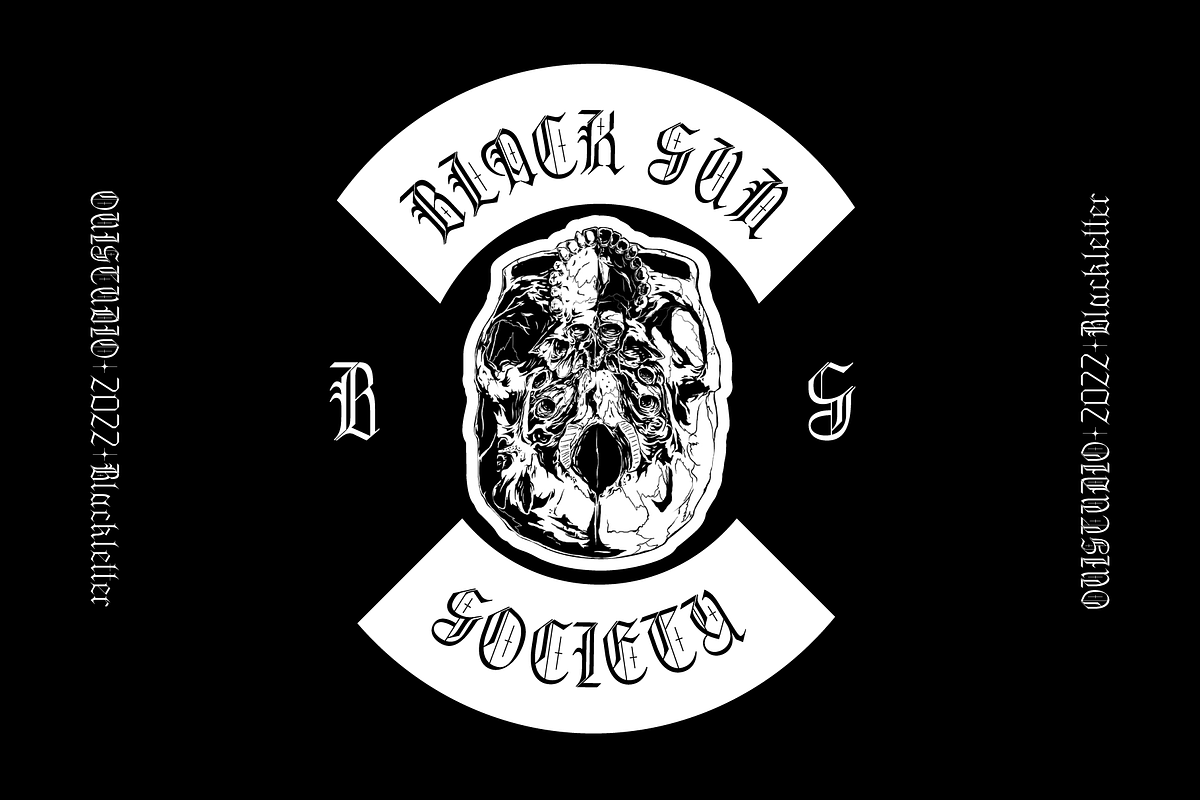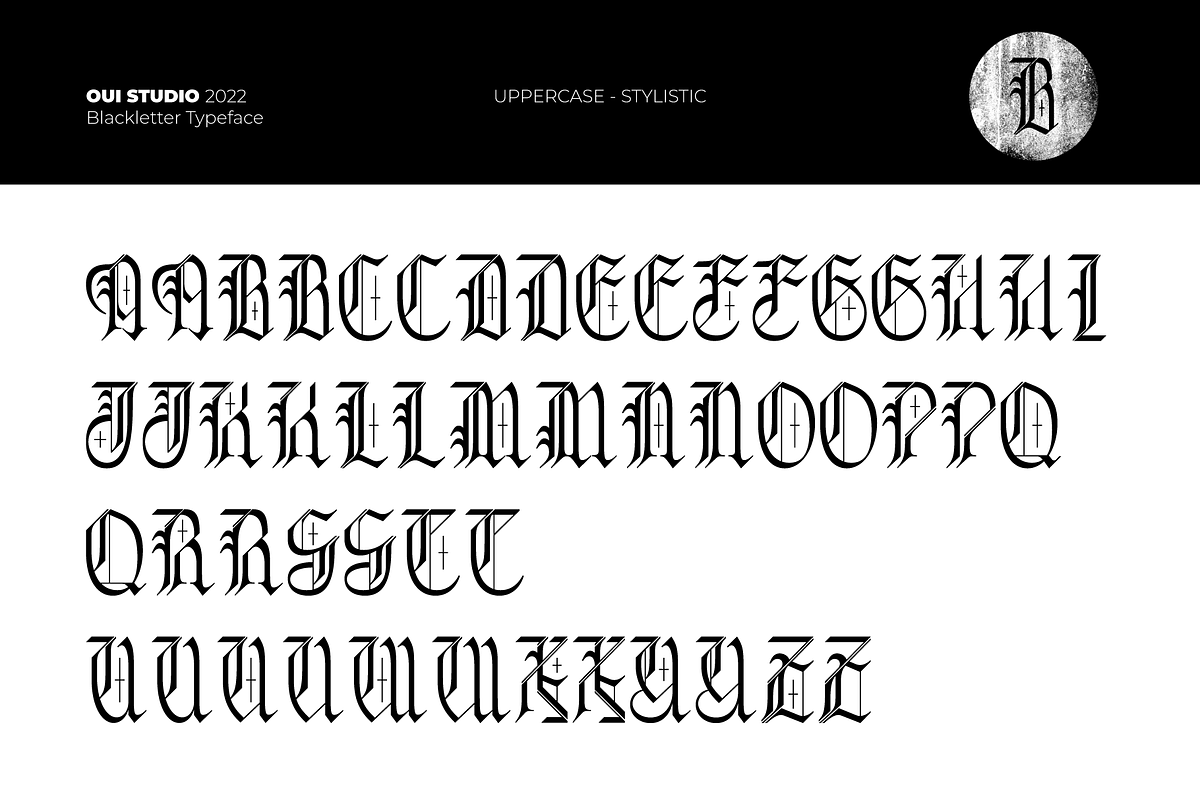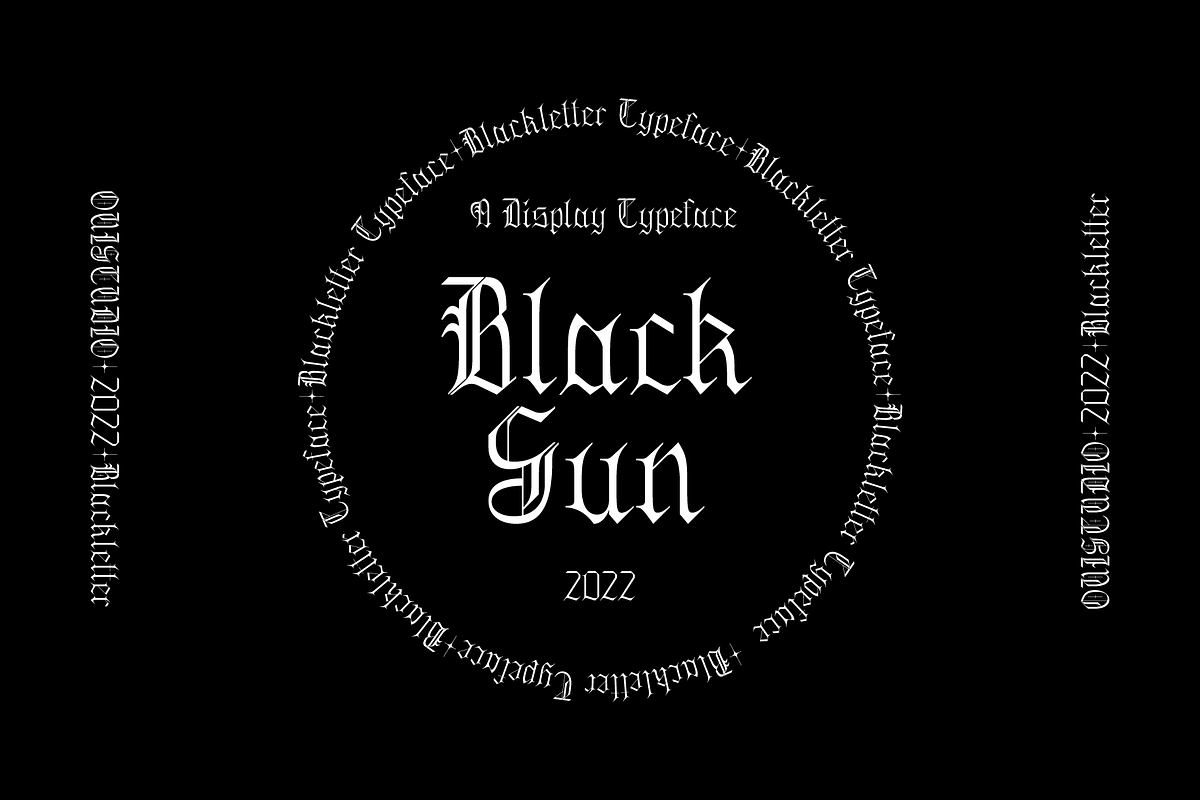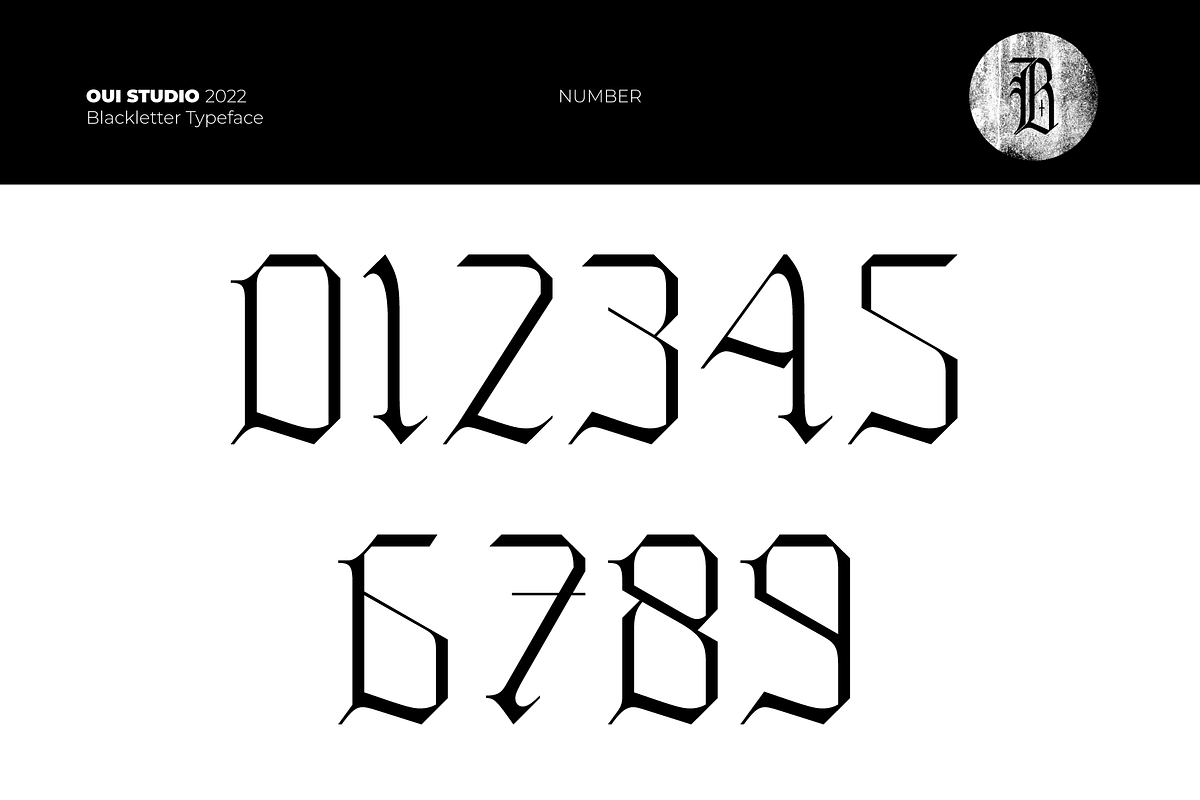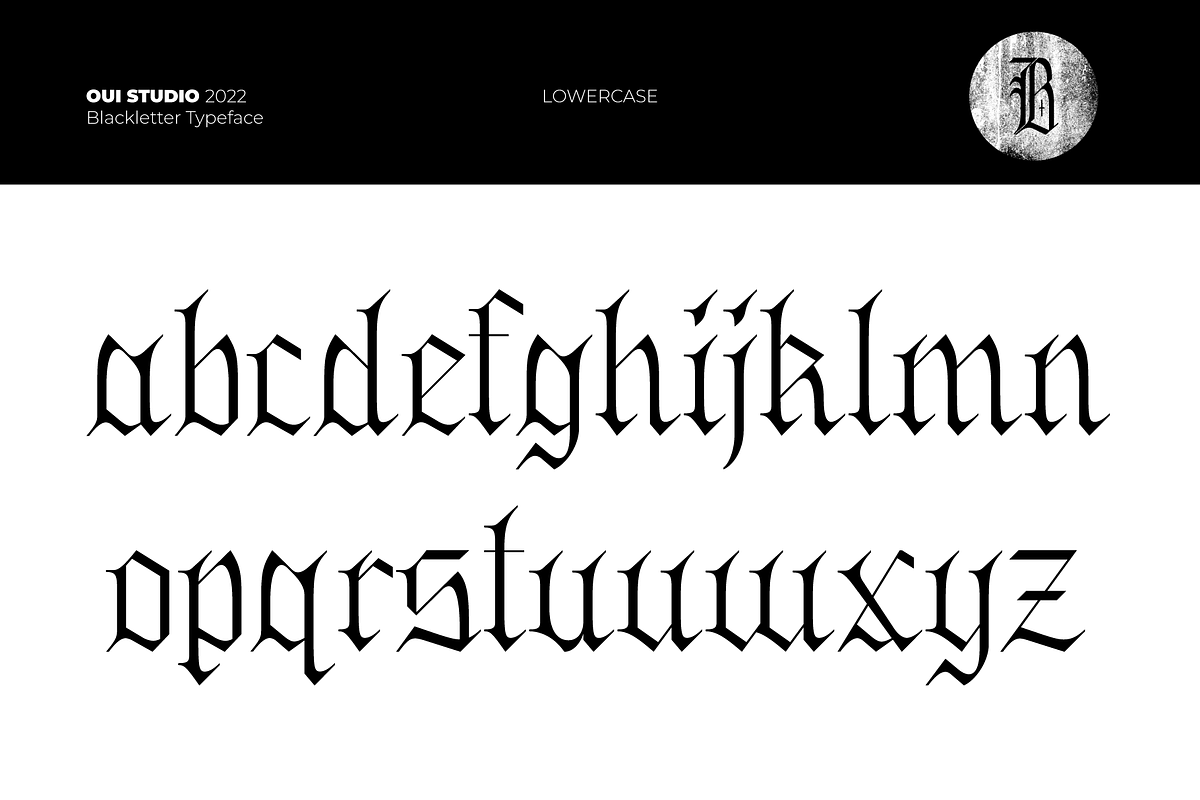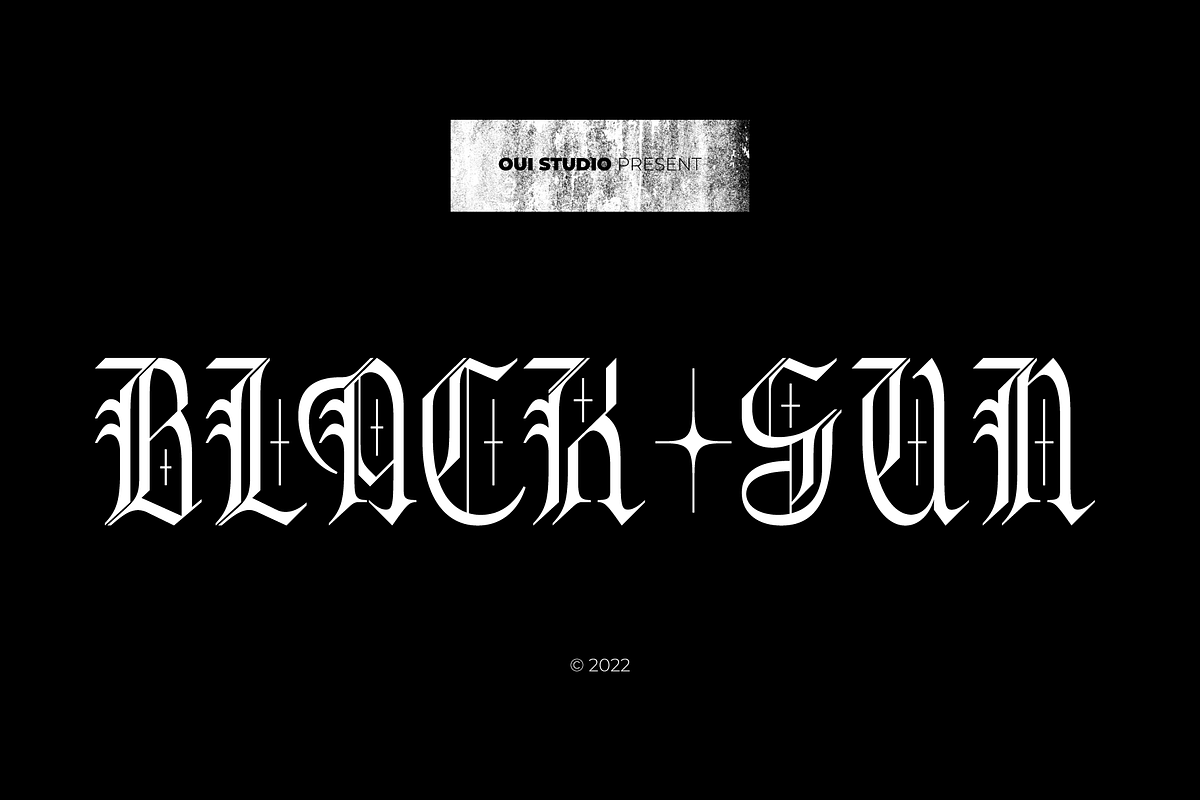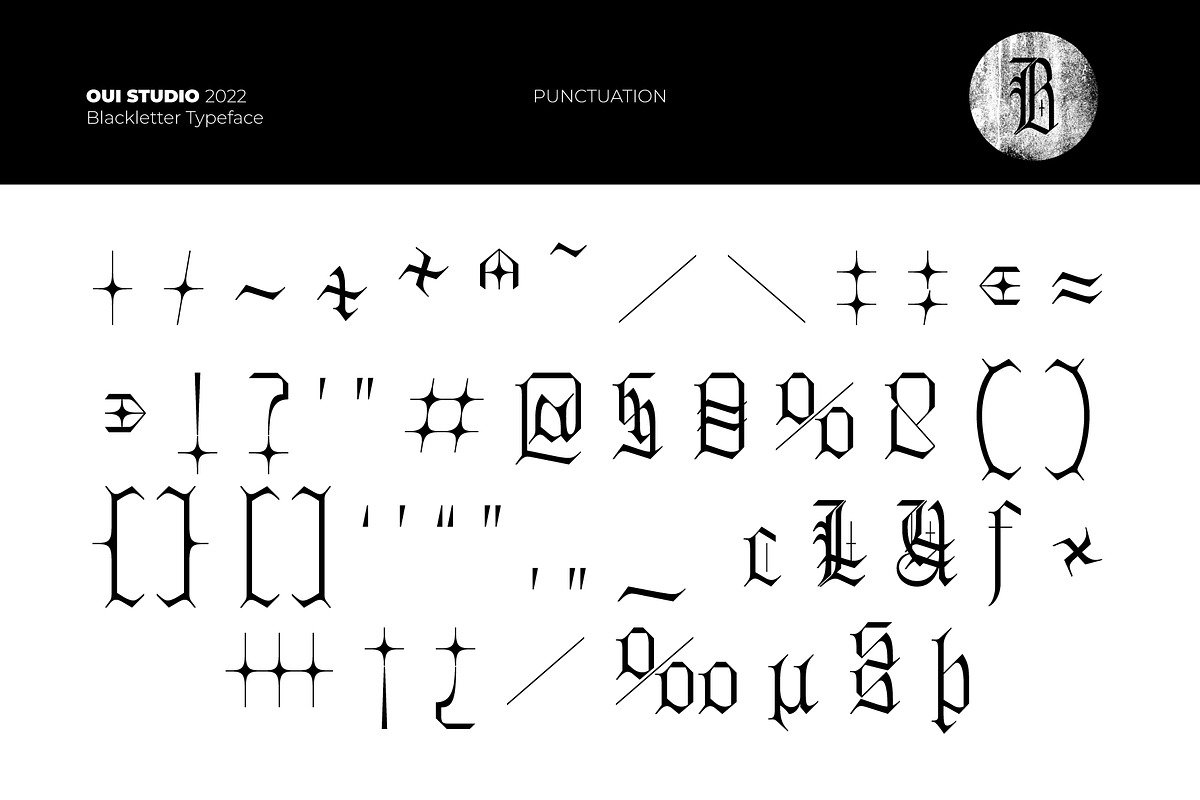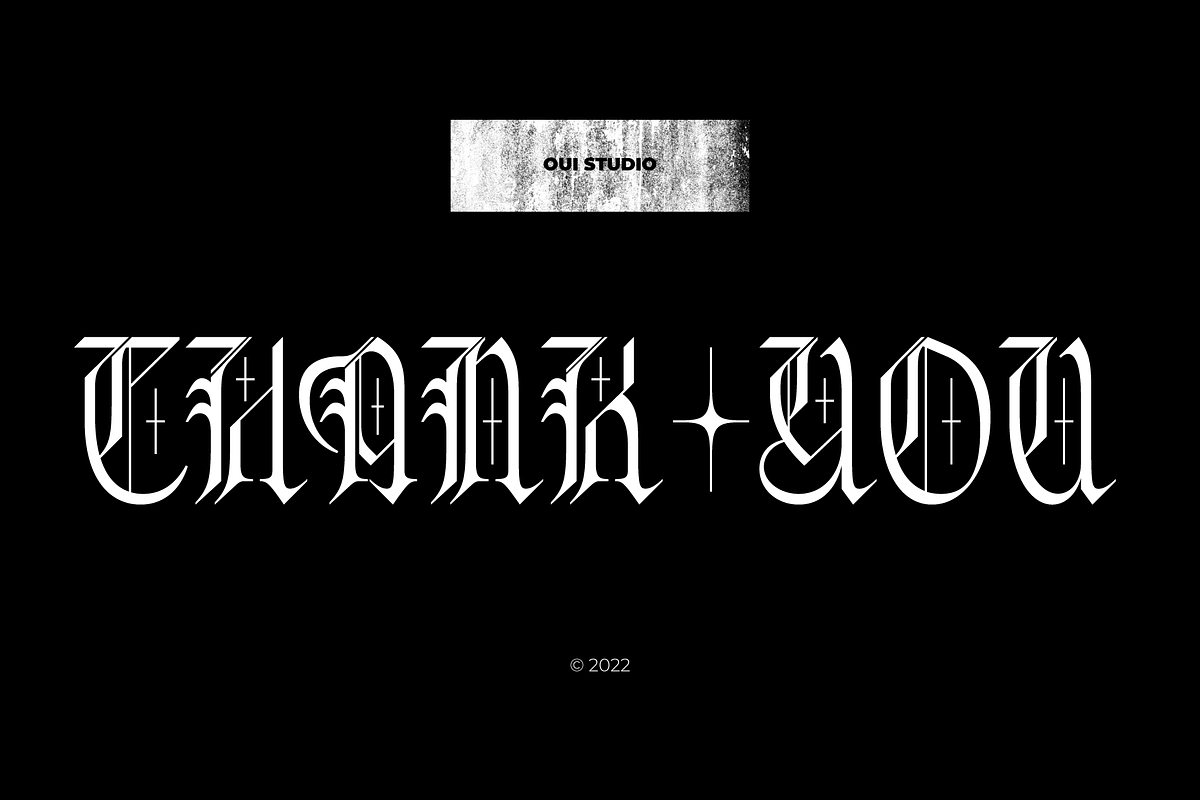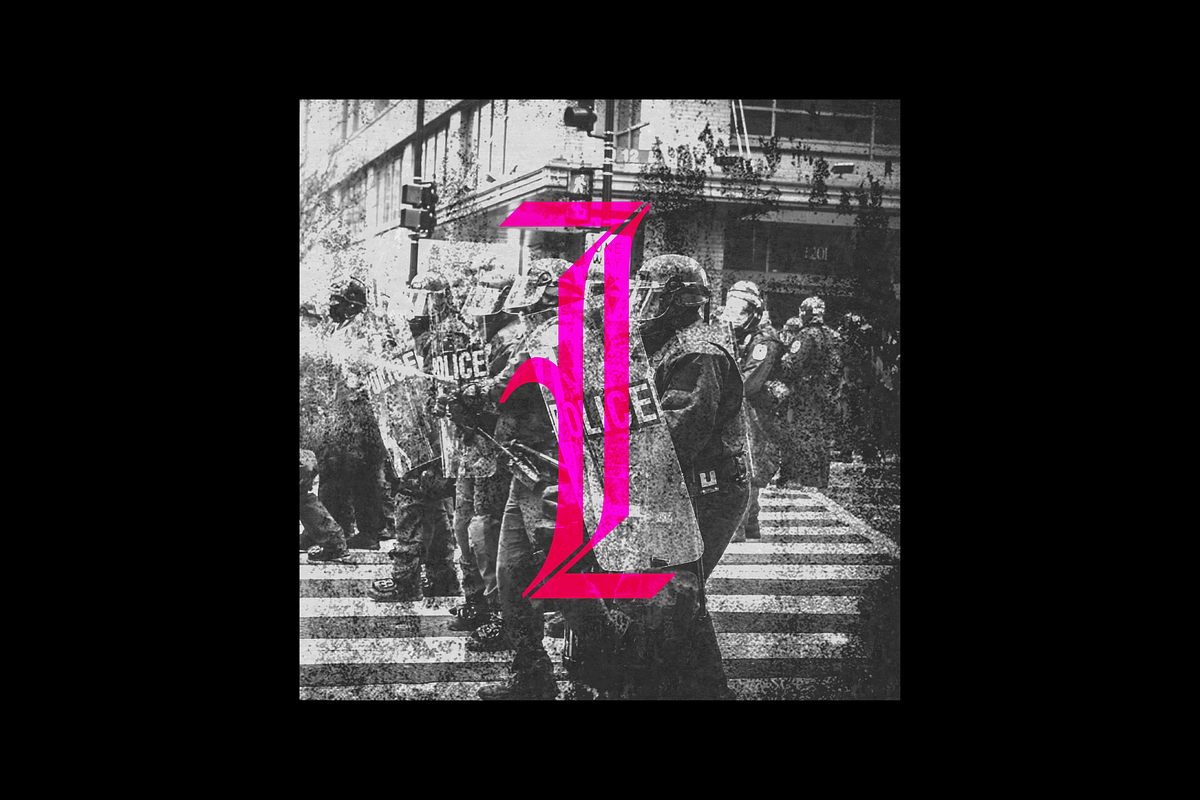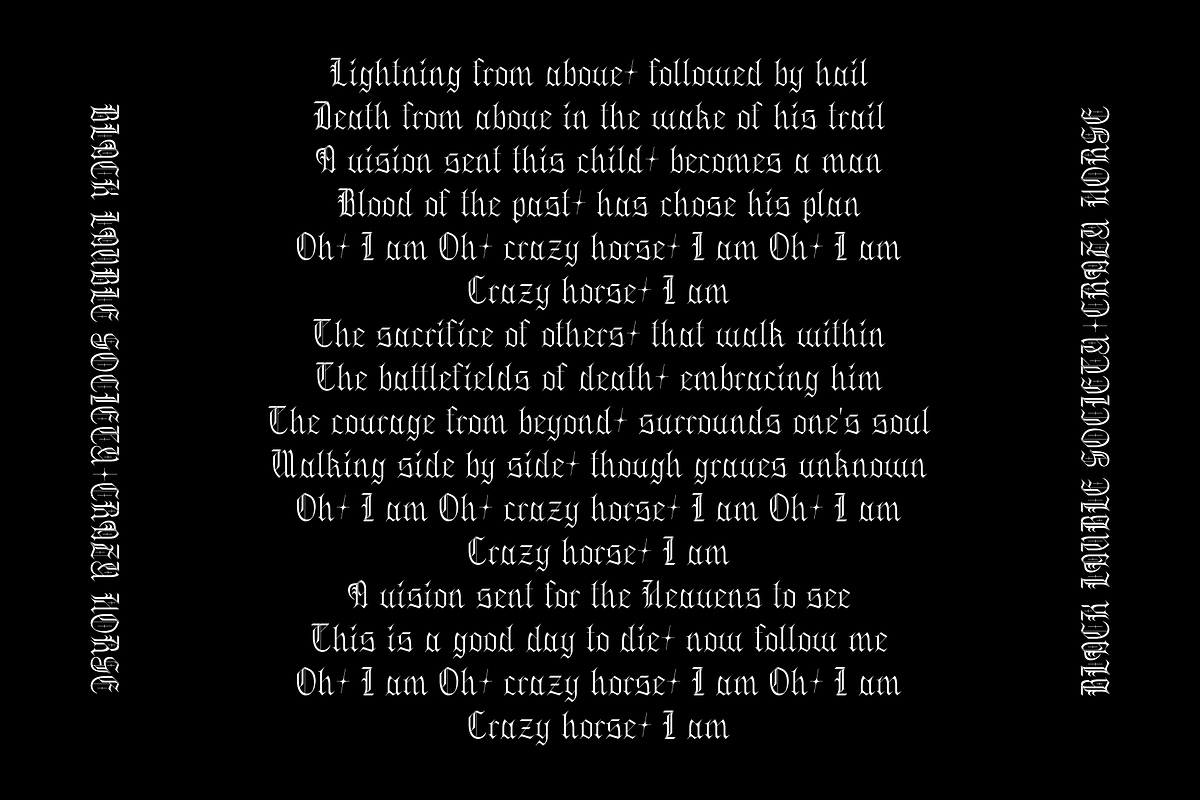
Hello, friends! The 'Black Sun' font is coming, a Blackletter font. Black Sun is very inspired by classic Old English. It's perfect for branding, logo Band, packaging, header, t-shirt design, poster, band, music, album, artwork, etc. Black Sun has a unique cross line in every glyph. Thank you!